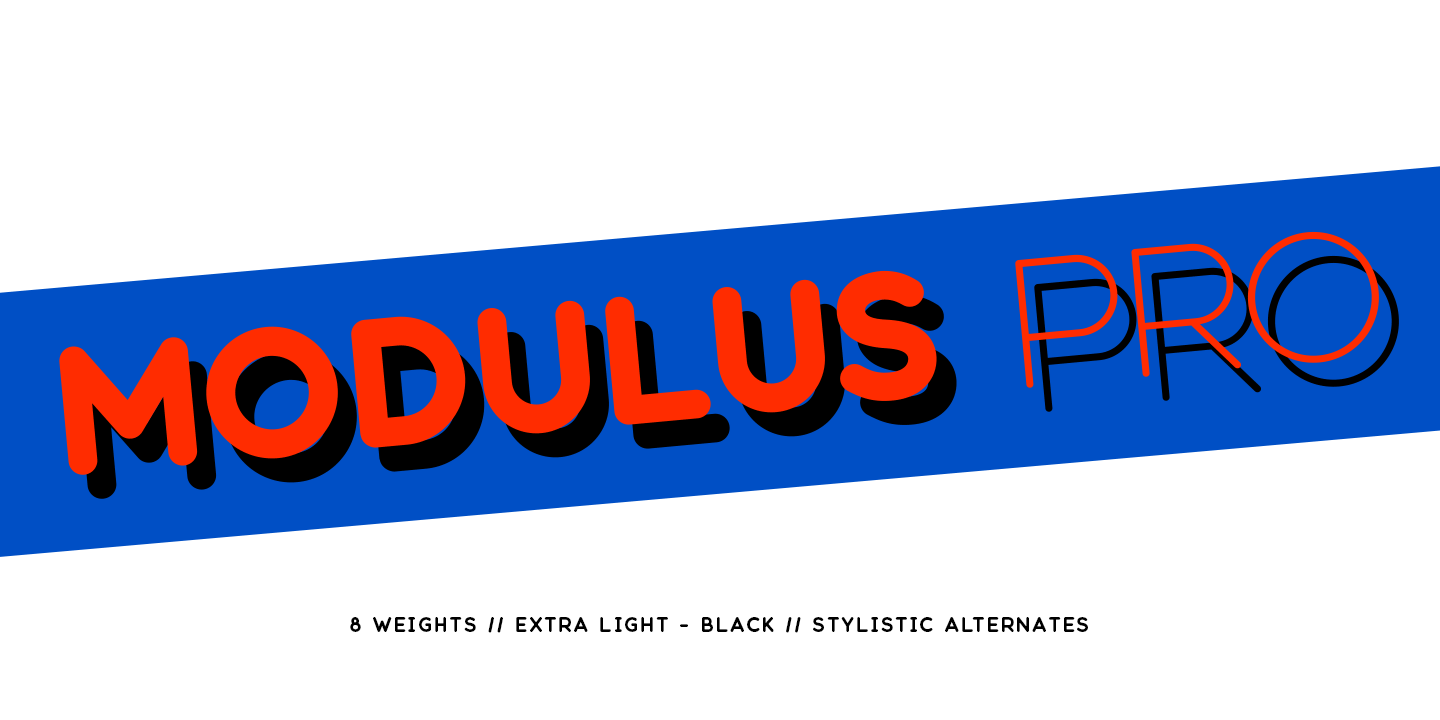
Modulus Pro Font is perfect for technical projects including software company branding, engineering documentation, scientific publications, mathematical textbooks, technology conference materials, data visualization graphics, technical manual layouts, and professional programming environments. This precise typeface brings mathematical accuracy and technical excellence to any design project.
What makes Modulus Pro Font exciting is its perfect fusion of mathematical precision with exceptional readability across all technical applications. The systematically designed letterforms feature consistent modular construction and optimized spacing that ensures clarity in complex technical documents. This font delivers the professional reliability that technical professionals demand while maintaining the visual appeal needed for modern digital interfaces and documentation.
The Modulus Pro Font family typically includes multiple weights from light to black with corresponding italic styles, complete character sets featuring uppercase and lowercase letters, numerals, technical symbols, and mathematical operators. The design often incorporates monospaced variants for coding applications and tabular figures for data presentation. Premium versions include comprehensive OpenType features, extended language support, and specialized character sets for scientific notation.
Whether you're designing for tech companies, research laboratories, or educational institutions, Modulus Pro Font Free Download delivers the technical precision that builds professional credibility. Its systematic design makes it ideal for complex documentation and user interfaces that require absolute clarity and consistency. The font's modular heritage ensures it conveys expertise and reliability, making it perfect for any project requiring the authoritative aesthetic of technical excellence and scientific accuracy.